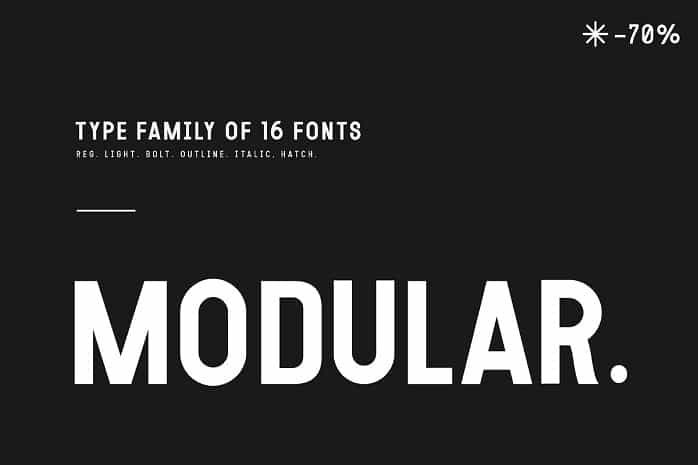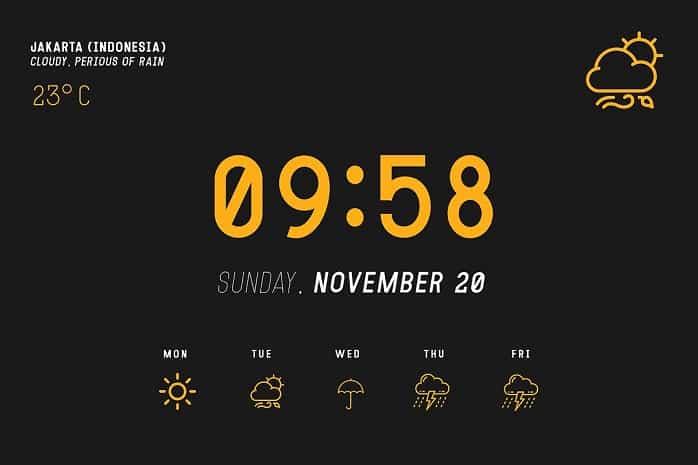
Introducing Modular Typeface. Modular makes it simple to provide fresh & futuristic look for any brand or an advertisement. Modular says “hi” to technology, but in a nice way. Modular is a Uppercase typeface, with an uppercase form, characterized, unified, and articulate, smooth curves, all caps display, it has 16 weights in total. Influenced with accuracy of computer terminal, application, neat design.